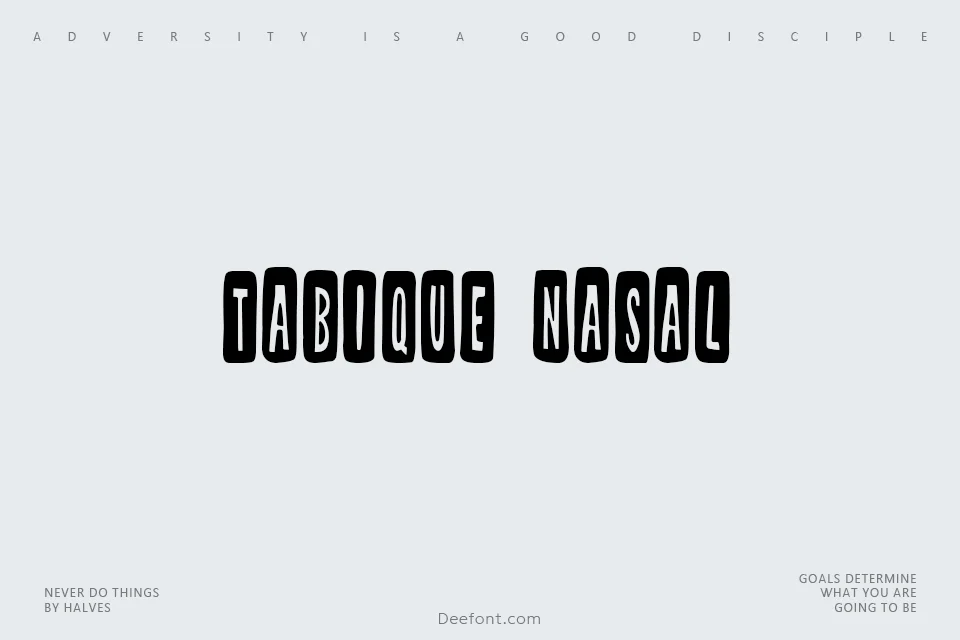
Tabique Nasal Font
Tabique Nasal is a bold, decorative display typeface featuring characters enclosed in distinctive rounded rectangles, delivering a playful and dynamic aesthetic. Each letter showcases thick strokes with high contrast, making it highly legible for eye-catching headlines and creative projects. Perfect for posters, branding, children’s books, and digital content, this unique font adds personality and visual impact to any design composition while maintaining excellent readability and a quirky, contemporary appeal.